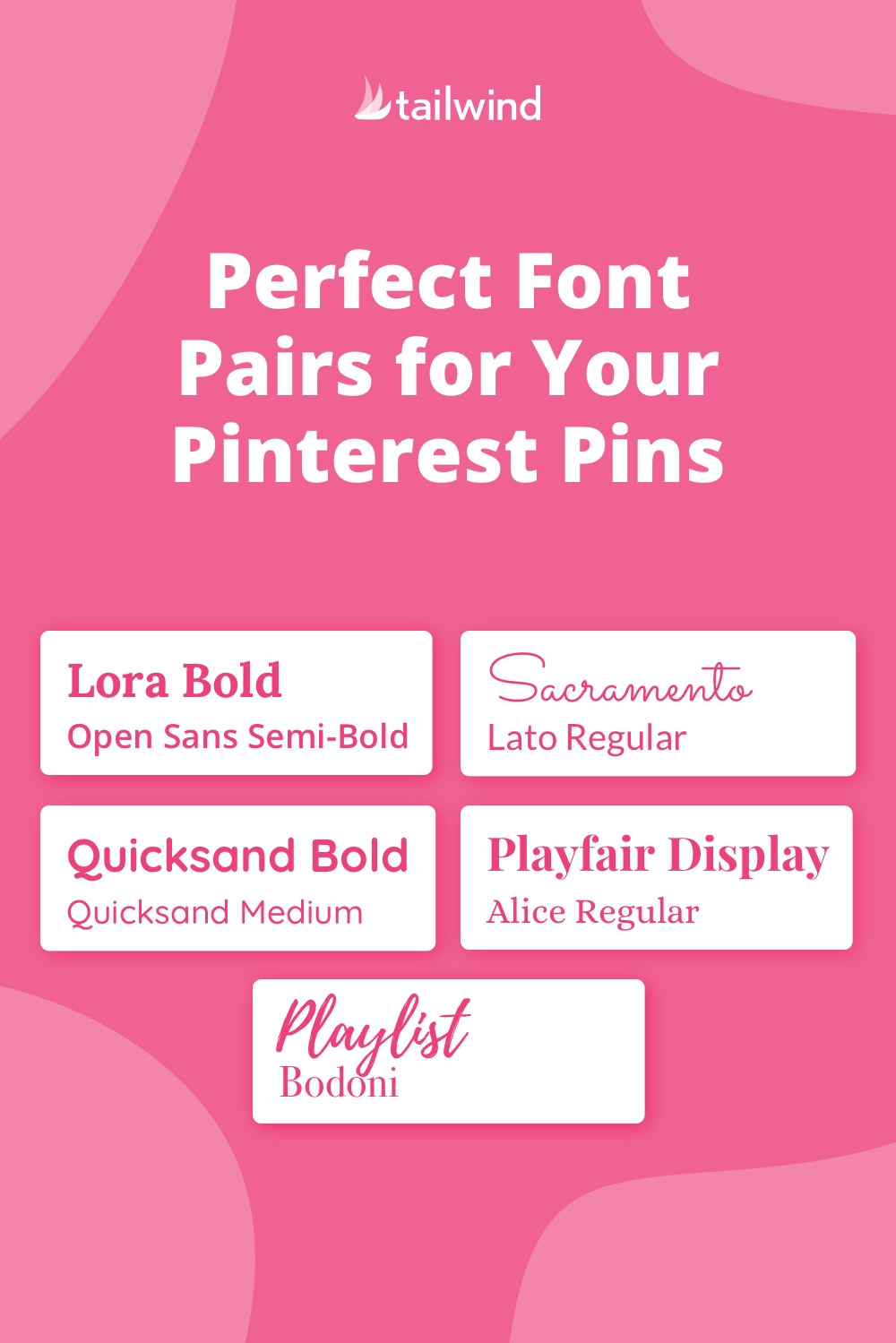
Best Font For Pinterest Pins . learn how to choose the best canva fonts for your pinterest pins with this guide to over 50 font combinations. learn how to choose and pair fonts for pinterest pins with canva, the most popular graphic design tool. here are some characteristics of fonts that work well for pinterest pins: learn how to choose the best fonts for your pinterest pins and avoid common mistakes. Opt for fonts that are highly legible, even at smaller sizes, to ensure that your text is easily readable on various devices and screen sizes. Discover five simple font combinations and examples of serif, sans serif and script fonts. See over 20 free canva fonts for pinterest pins and get tips on font psychology and design. learn how to choose and pair fonts for pinterest pins that stand out and attract users.
learn how to choose the best fonts for your pinterest pins and avoid common mistakes. Opt for fonts that are highly legible, even at smaller sizes, to ensure that your text is easily readable on various devices and screen sizes. See over 20 free canva fonts for pinterest pins and get tips on font psychology and design. here are some characteristics of fonts that work well for pinterest pins: Discover five simple font combinations and examples of serif, sans serif and script fonts. learn how to choose and pair fonts for pinterest pins that stand out and attract users. learn how to choose and pair fonts for pinterest pins with canva, the most popular graphic design tool. learn how to choose the best canva fonts for your pinterest pins with this guide to over 50 font combinations.
Best Font For Pinterest Pins learn how to choose and pair fonts for pinterest pins that stand out and attract users. learn how to choose the best canva fonts for your pinterest pins with this guide to over 50 font combinations. Opt for fonts that are highly legible, even at smaller sizes, to ensure that your text is easily readable on various devices and screen sizes. here are some characteristics of fonts that work well for pinterest pins: Discover five simple font combinations and examples of serif, sans serif and script fonts. learn how to choose the best fonts for your pinterest pins and avoid common mistakes. learn how to choose and pair fonts for pinterest pins that stand out and attract users. See over 20 free canva fonts for pinterest pins and get tips on font psychology and design. learn how to choose and pair fonts for pinterest pins with canva, the most popular graphic design tool.
Pinterest Fonts The ultimate guide to the best font pairings for Best Font For Pinterest Pins Discover five simple font combinations and examples of serif, sans serif and script fonts. learn how to choose and pair fonts for pinterest pins that stand out and attract users. learn how to choose and pair fonts for pinterest pins with canva, the most popular graphic design tool. See over 20 free canva fonts for pinterest pins and. Best Font For Pinterest Pins.
50 best canva font pairings for pinterest pins using free canva fonts Best Font For Pinterest Pins here are some characteristics of fonts that work well for pinterest pins: learn how to choose the best canva fonts for your pinterest pins with this guide to over 50 font combinations. learn how to choose and pair fonts for pinterest pins that stand out and attract users. See over 20 free canva fonts for pinterest pins. Best Font For Pinterest Pins.
12 best canva free font pairings for pinterest pins magentastreaks Best Font For Pinterest Pins here are some characteristics of fonts that work well for pinterest pins: learn how to choose and pair fonts for pinterest pins that stand out and attract users. See over 20 free canva fonts for pinterest pins and get tips on font psychology and design. learn how to choose the best fonts for your pinterest pins and. Best Font For Pinterest Pins.
canva font ideas, canva font, Pinterest Graphics, Font Pairing, Fonts Best Font For Pinterest Pins Discover five simple font combinations and examples of serif, sans serif and script fonts. learn how to choose the best fonts for your pinterest pins and avoid common mistakes. here are some characteristics of fonts that work well for pinterest pins: learn how to choose and pair fonts for pinterest pins that stand out and attract users.. Best Font For Pinterest Pins.
Pinterest Fonts The ultimate guide to the best font pairings for Best Font For Pinterest Pins learn how to choose the best fonts for your pinterest pins and avoid common mistakes. here are some characteristics of fonts that work well for pinterest pins: See over 20 free canva fonts for pinterest pins and get tips on font psychology and design. learn how to choose the best canva fonts for your pinterest pins with. Best Font For Pinterest Pins.
Pinterest Fonts The ultimate guide to the best font pairings for Best Font For Pinterest Pins here are some characteristics of fonts that work well for pinterest pins: learn how to choose and pair fonts for pinterest pins that stand out and attract users. learn how to choose the best fonts for your pinterest pins and avoid common mistakes. learn how to choose the best canva fonts for your pinterest pins with. Best Font For Pinterest Pins.
50+ Best Canva Font Pairings For Pinterest Pins Best Font For Pinterest Pins Discover five simple font combinations and examples of serif, sans serif and script fonts. Opt for fonts that are highly legible, even at smaller sizes, to ensure that your text is easily readable on various devices and screen sizes. learn how to choose and pair fonts for pinterest pins that stand out and attract users. learn how to. Best Font For Pinterest Pins.
Vintage Fonts, Vintage Typography, Graphics Vintage, Vector Graphics Best Font For Pinterest Pins learn how to choose and pair fonts for pinterest pins with canva, the most popular graphic design tool. learn how to choose and pair fonts for pinterest pins that stand out and attract users. Discover five simple font combinations and examples of serif, sans serif and script fonts. Opt for fonts that are highly legible, even at smaller. Best Font For Pinterest Pins.
15 best Canva font pairings for Pinterest graphics. Font pairing ideas Best Font For Pinterest Pins learn how to choose and pair fonts for pinterest pins that stand out and attract users. learn how to choose the best canva fonts for your pinterest pins with this guide to over 50 font combinations. Discover five simple font combinations and examples of serif, sans serif and script fonts. See over 20 free canva fonts for pinterest. Best Font For Pinterest Pins.